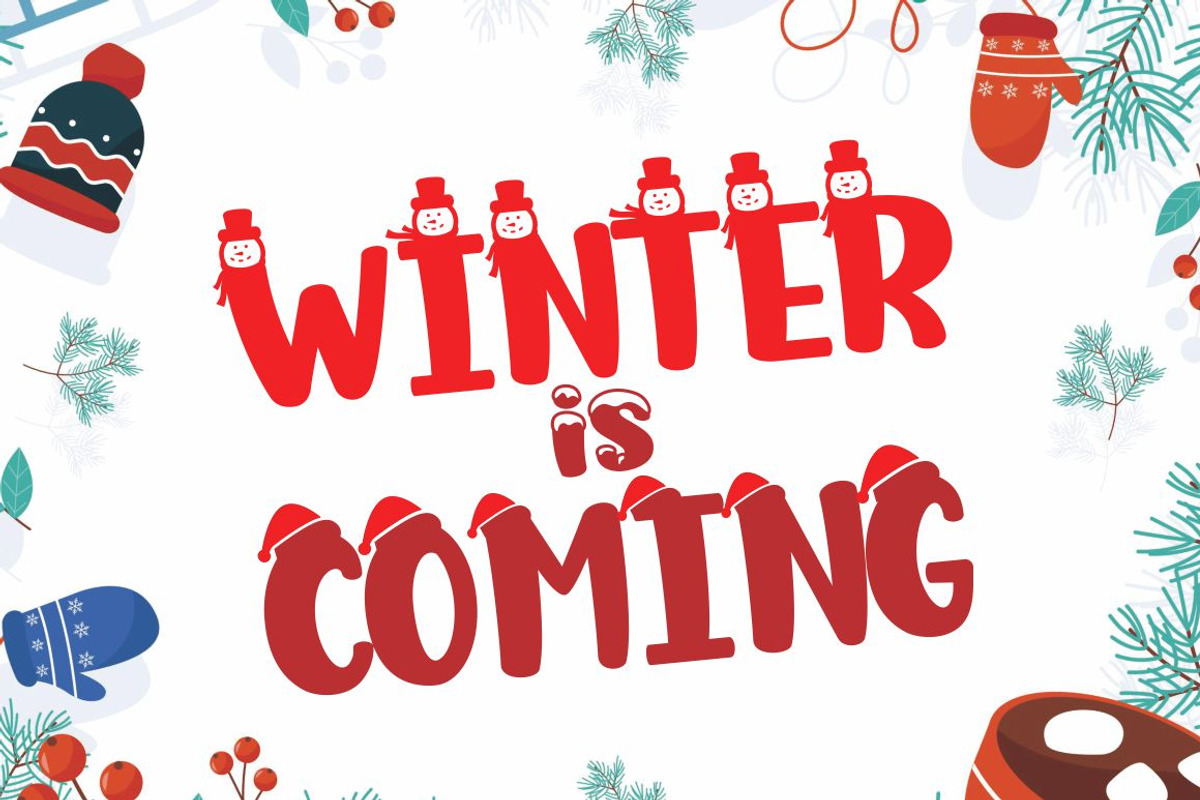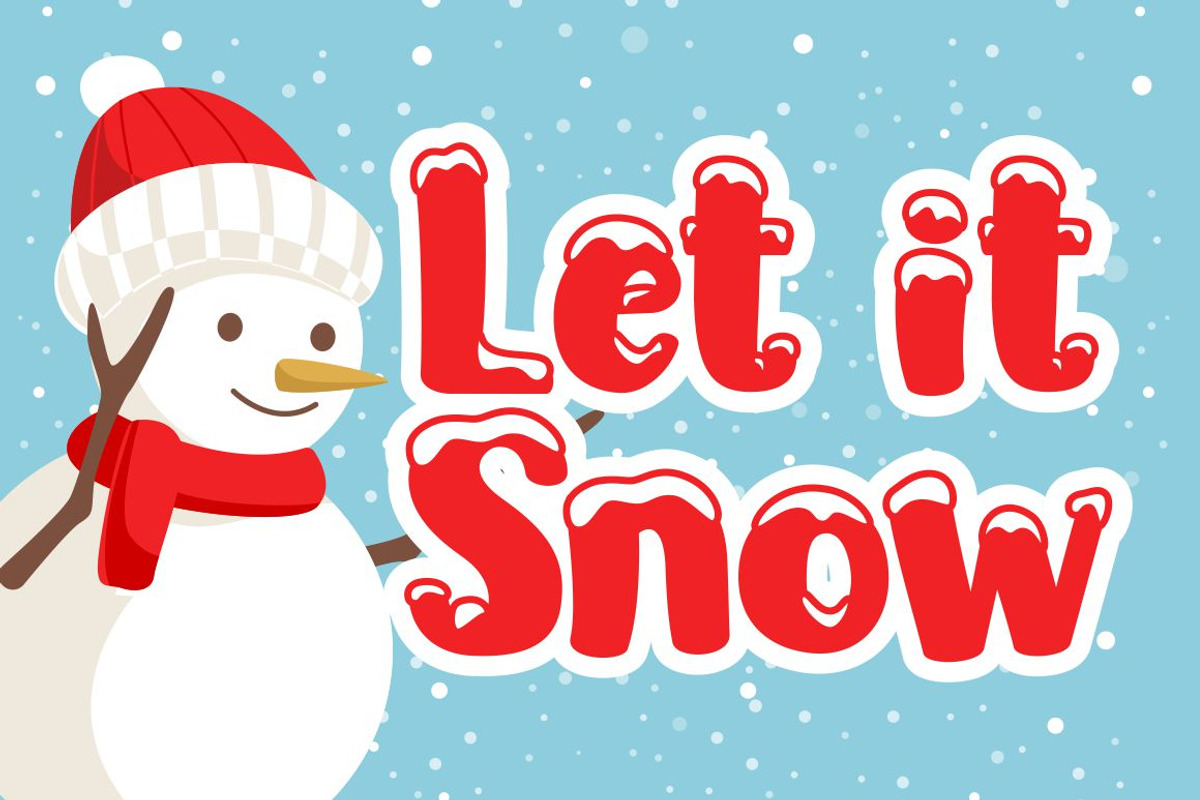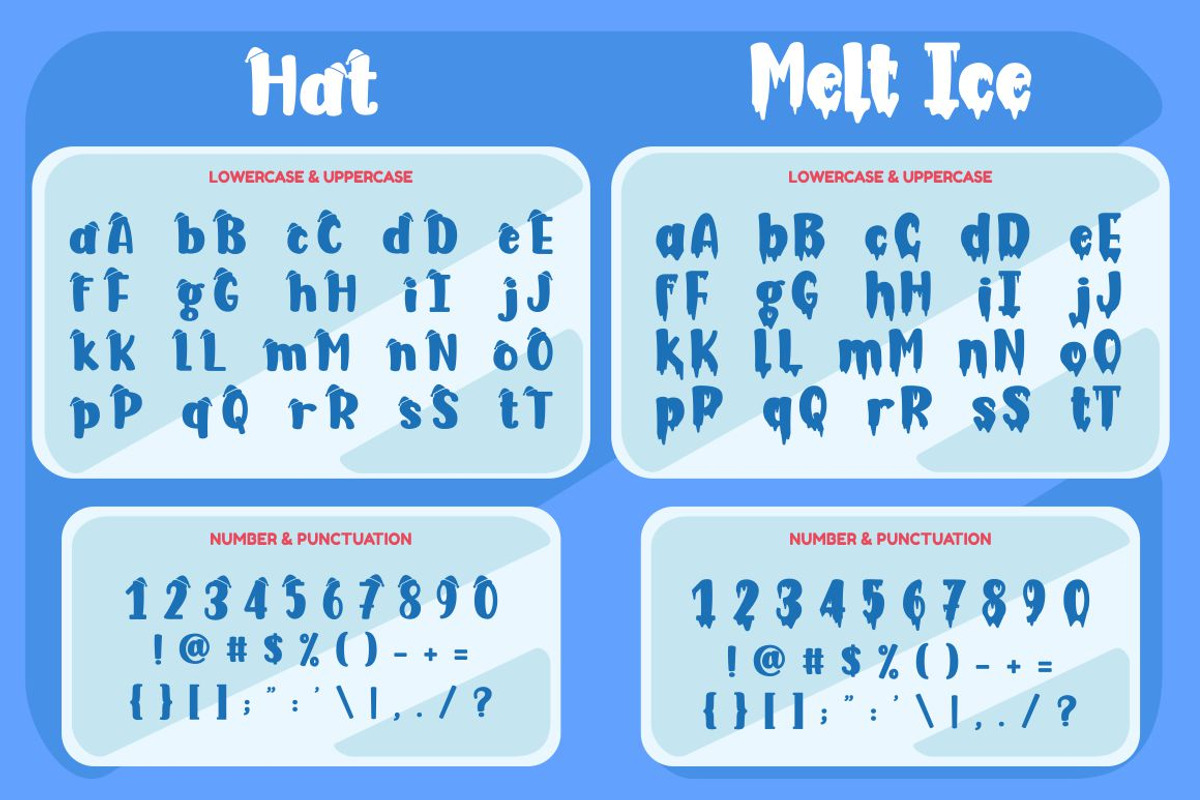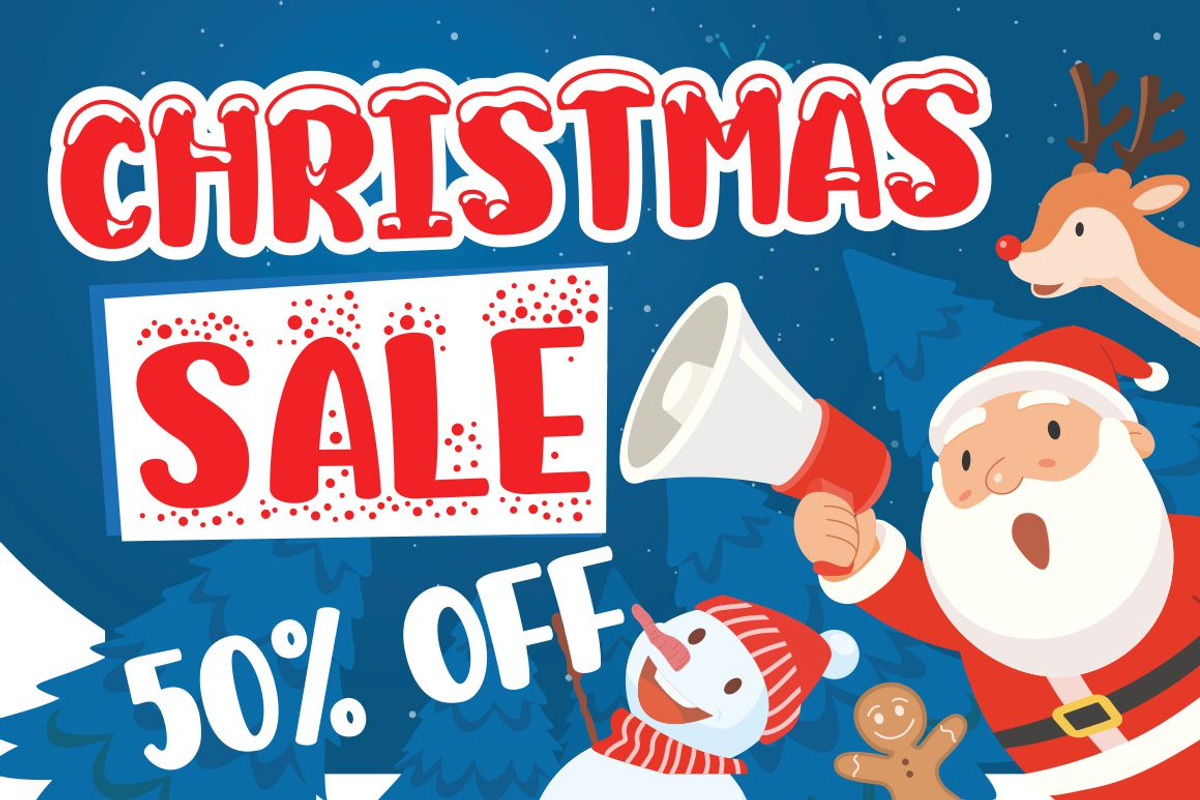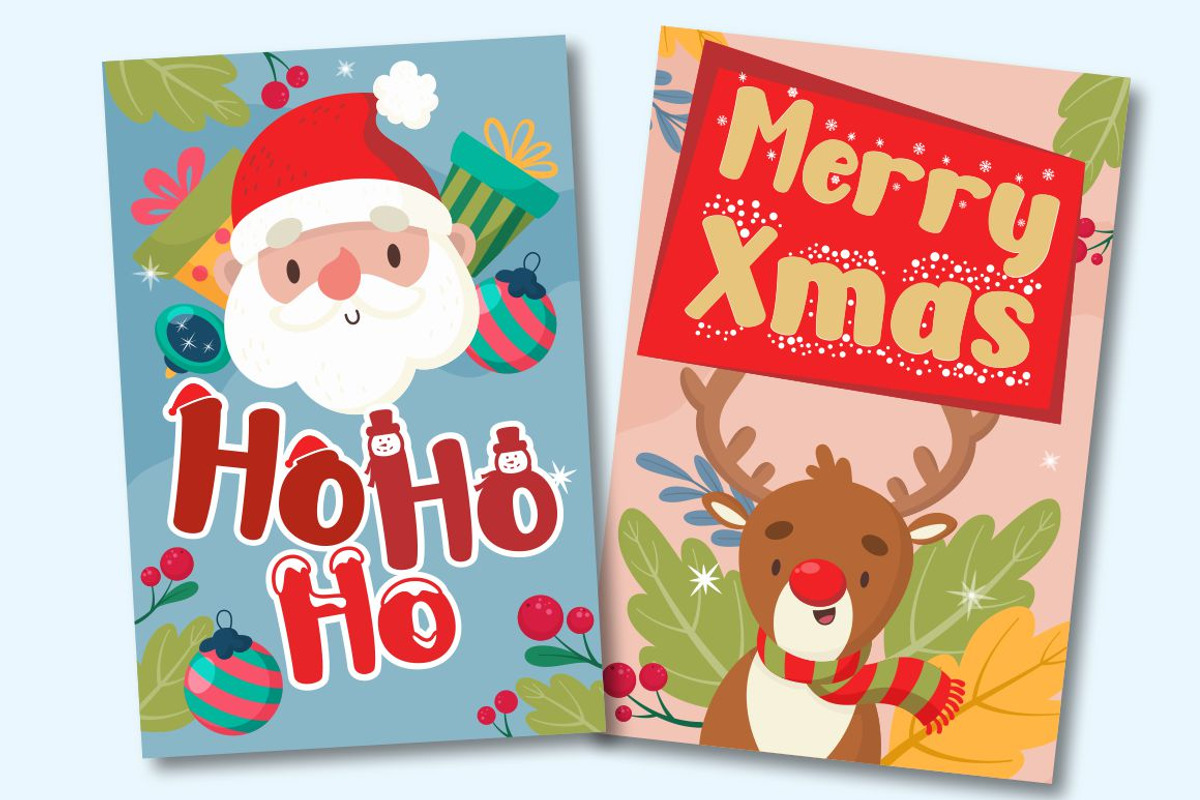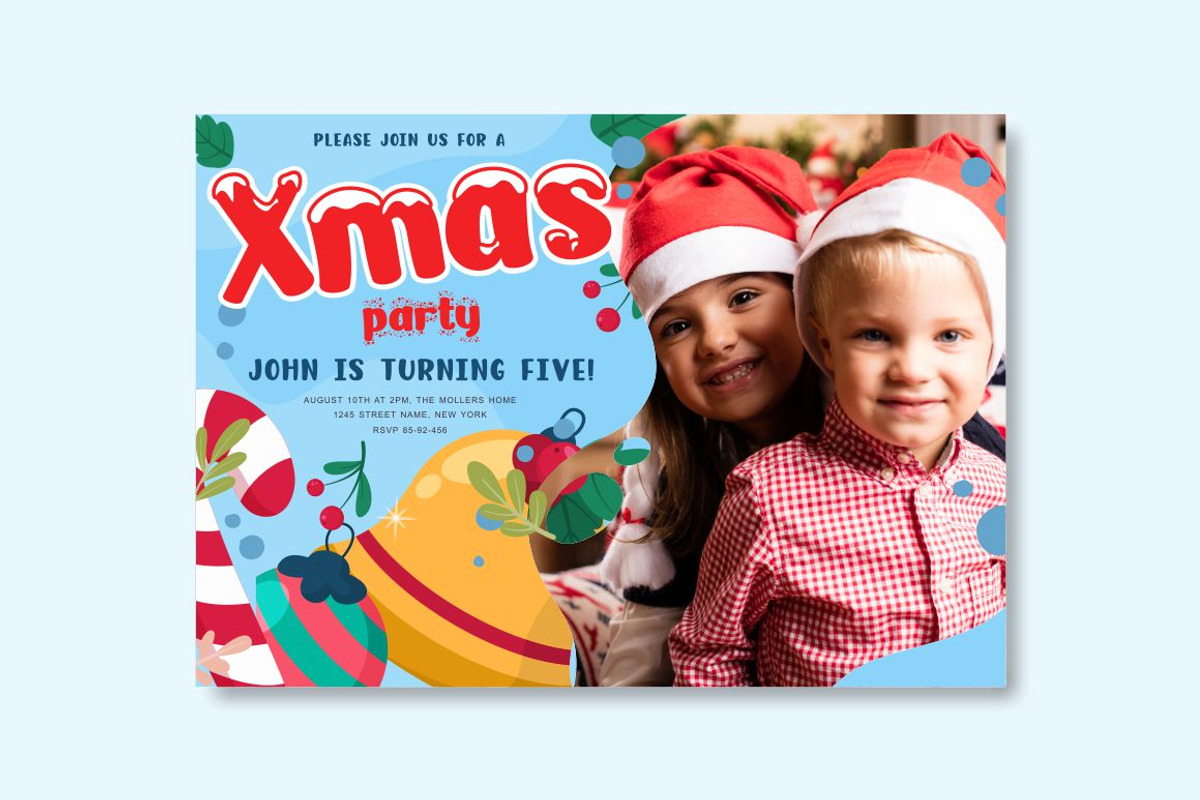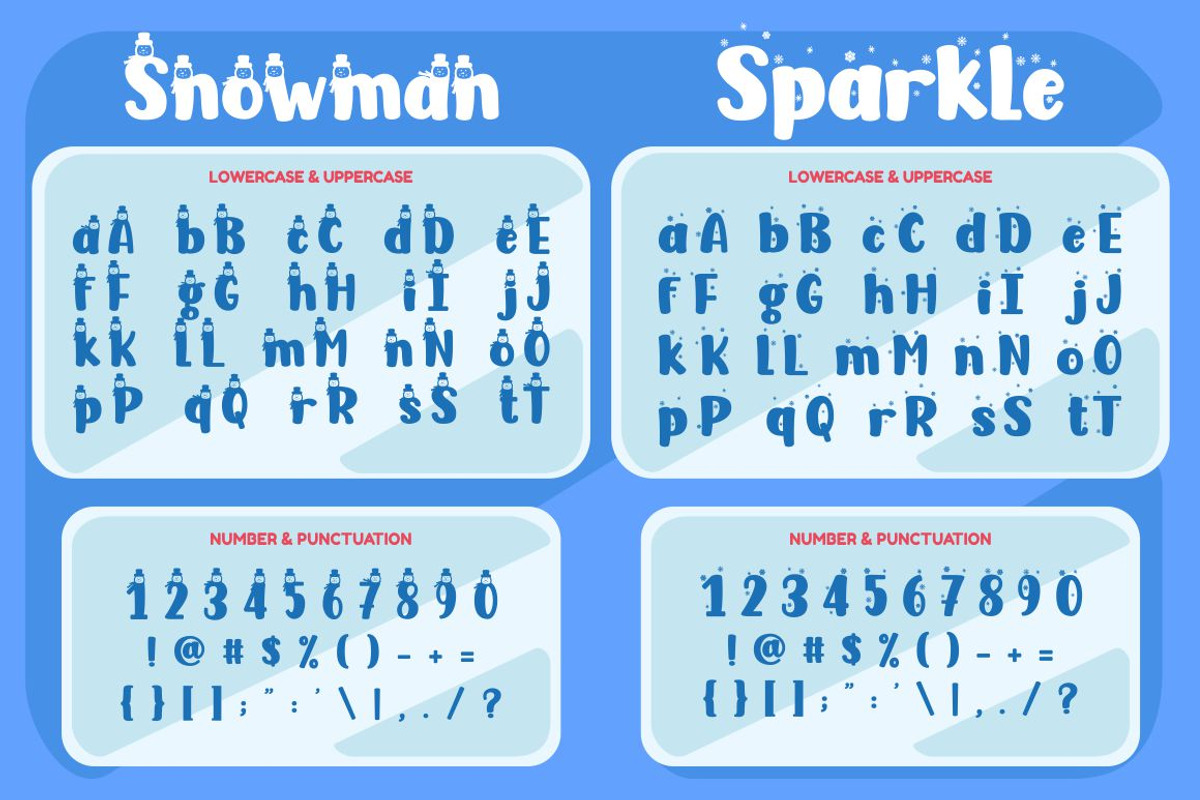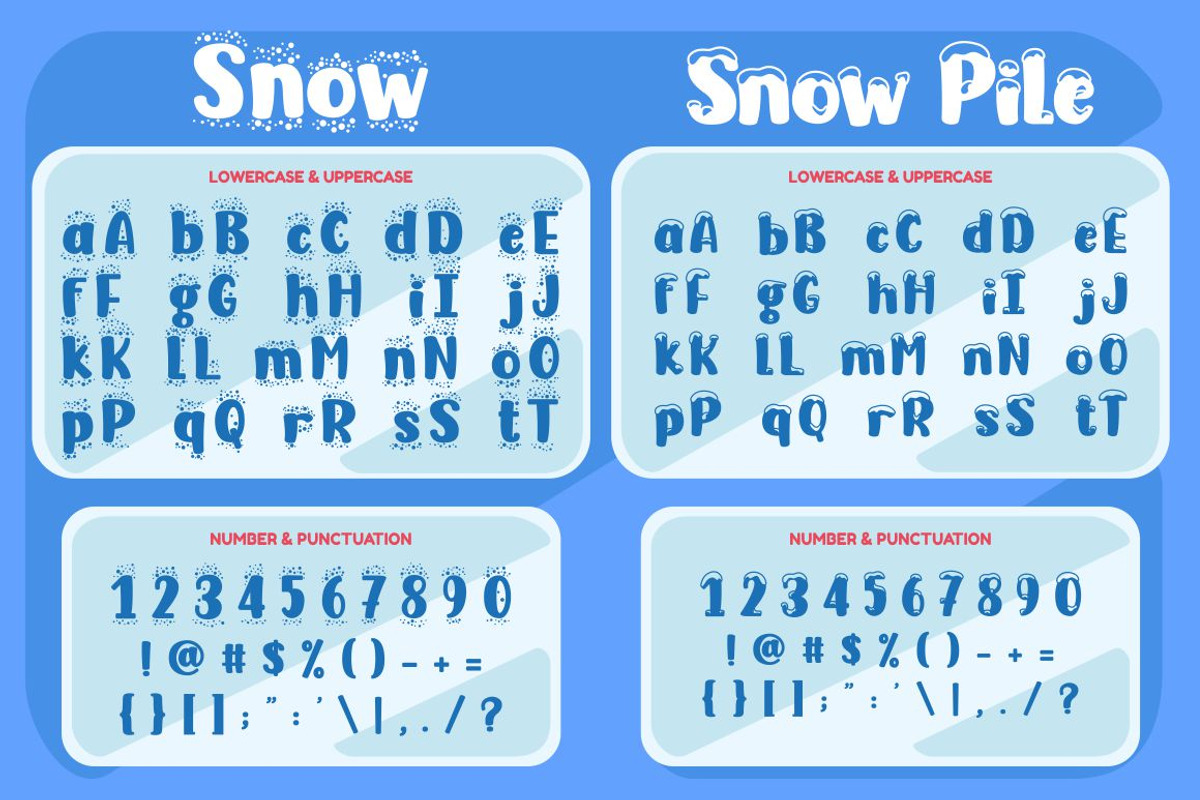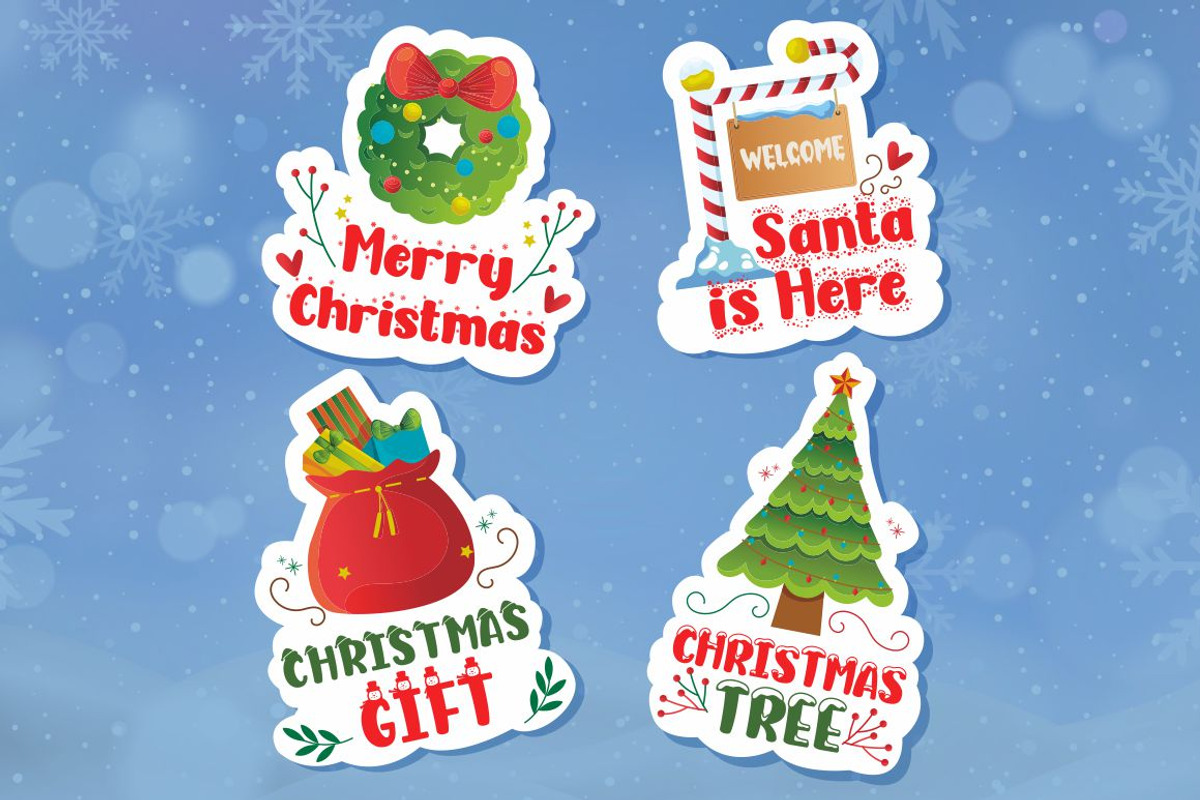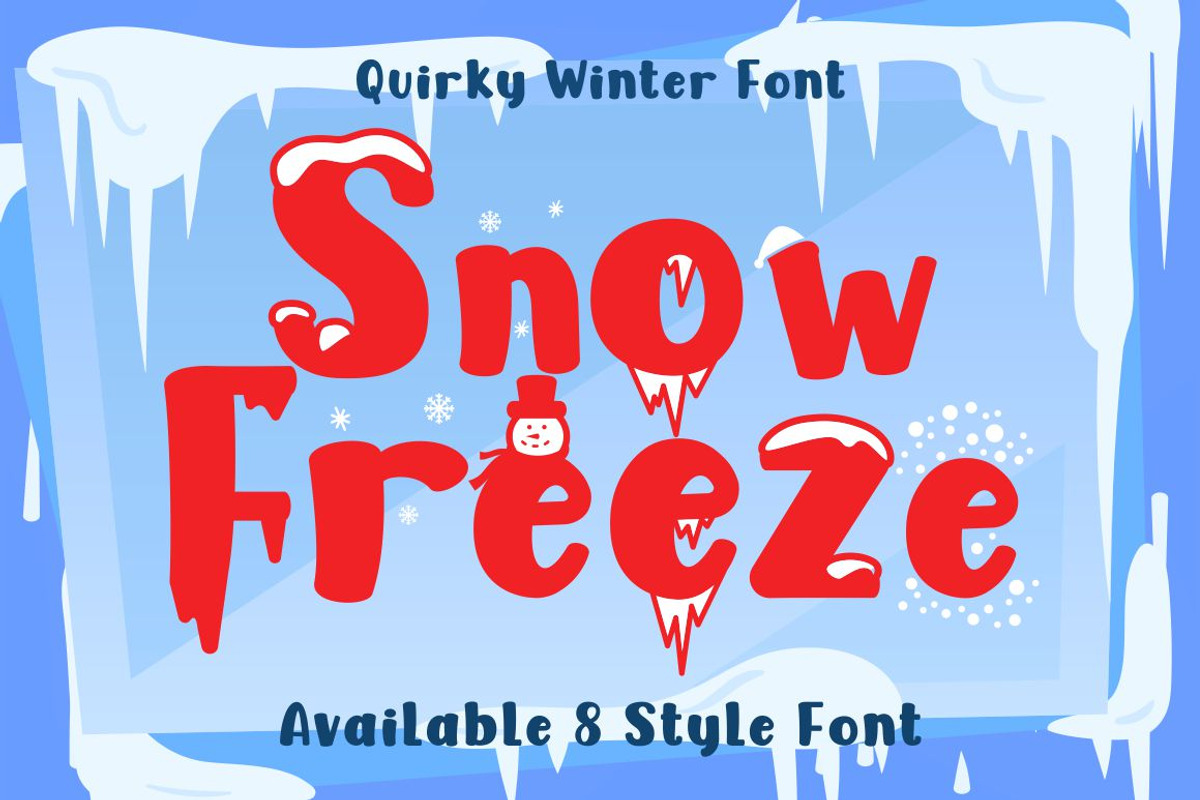
Snow Freeze - Quirky Winter Font
Snow Freeze
Snow Freeze a quirky playful font with 7 different style of the font. Each style has a difference in the decoration of the ornaments. This font is a winter theme font, so all the decorations are winter-related, such as: snow, snow cap, snowman, snow frezze, melt ice, snow pile and sparkle. With these decorations, this font will be perfect for your winter-themed projects. This font is also suitable for logos, branding, quotes, posters, stickers, greeting cards, invitation cards, birthday cards, quotes, crafting, svg, banners, movies, headlines and more. This font is also support multi language.
Comes with feature :
- Number, Punctuation And Symbols
- Multilanguage Support.